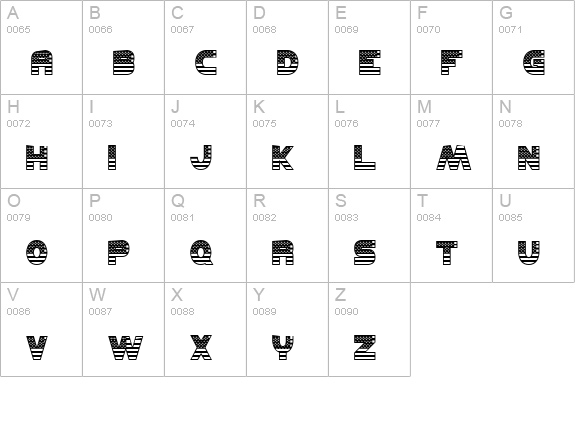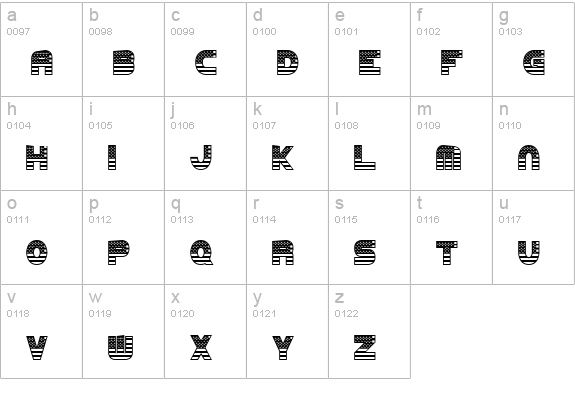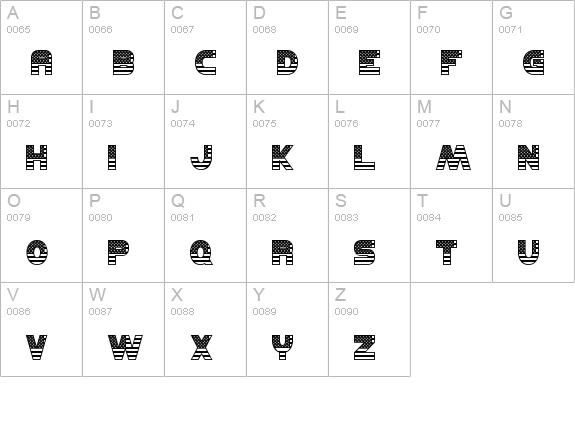
Introducing UNITED BRK font, a stunning typeface that exudes elegance and sophistication. This font is the perfect choice for designers and creatives looking to add a touch of class to their projects. With its sleek lines and clean curves, UNITED BRK font captures attention effortlessly and commands a strong presence. One of the best things about UNITED BRK font is that it is free! Yes, you read that right. This exquisite font is freely available to download at FontsMarket.com. Whether you're working on a personal project or a professional assignment, UNITED BRK font offers you the opportunity to elevate your designs without breaking the bank. The versatility of UNITED BRK font is truly awe-inspiring. From logos and branding materials to advertisements and website designs, this font adapts seamlessly to any context. Its timeless appeal and modern aesthetics make it a go-to choice for designers across various industries. The attention to detail in UNITED BRK font is truly commendable. Each letter has been meticulously crafted to ensure maximum legibility and readability, even at smaller sizes. The generous spacing between characters allows for effortless reading and creates a sense of harmony within the text. With UNITED BRK font, the possibilities are endless. Let your creativity flow as you explore the numerous design possibilities this font has to offer. Whether you're aiming for a bold and impactful statement or a refined and elegant look, UNITED BRK font has got you covered. Don't miss out on this incredible opportunity to enhance your designs with UNITED BRK font. Visit FontsMarket.com today and download this font for free. Elevate your design game and make a lasting impression with UNITED BRK font.